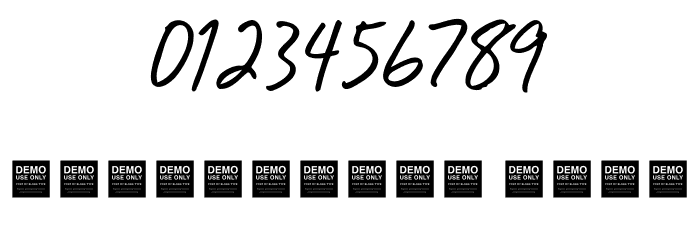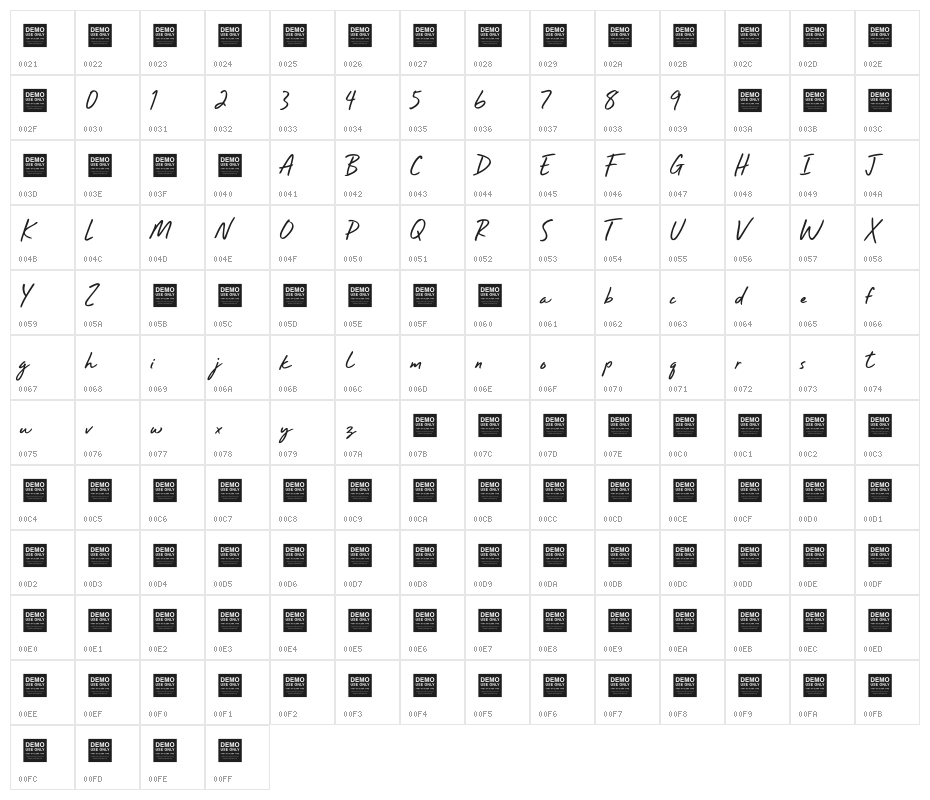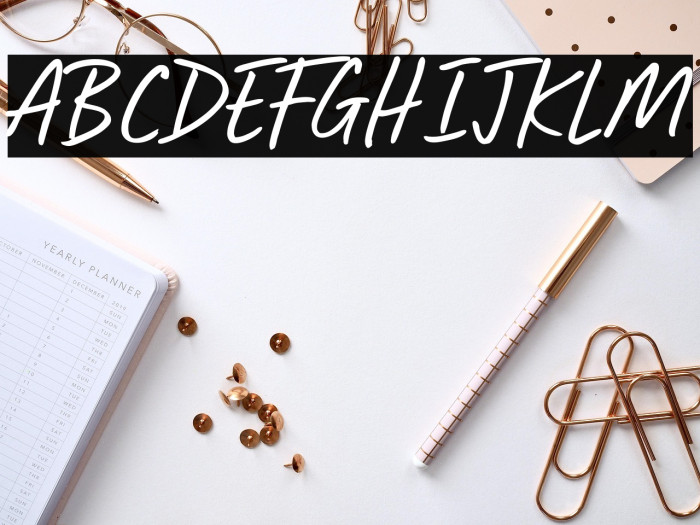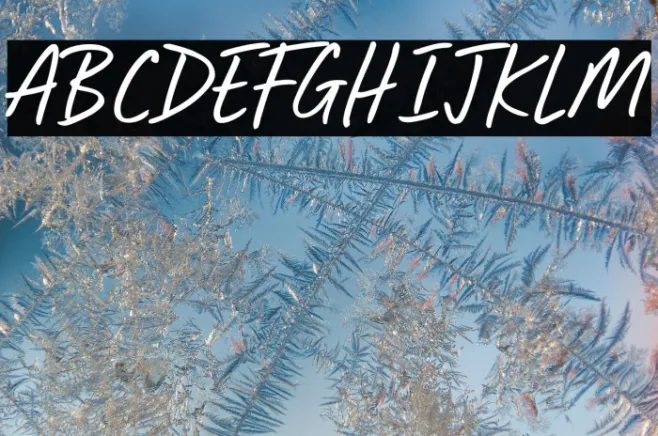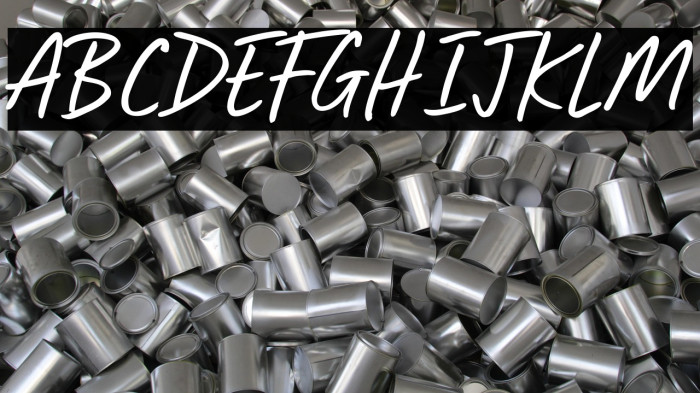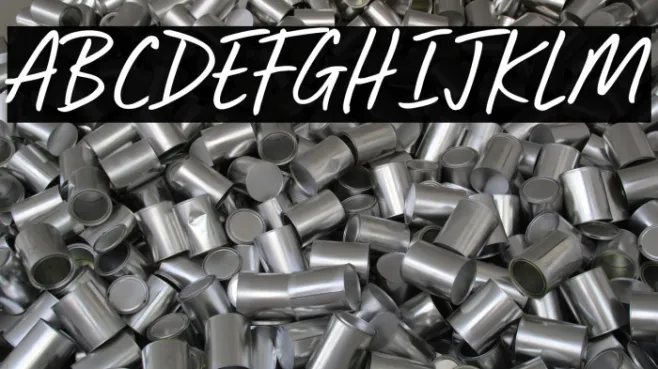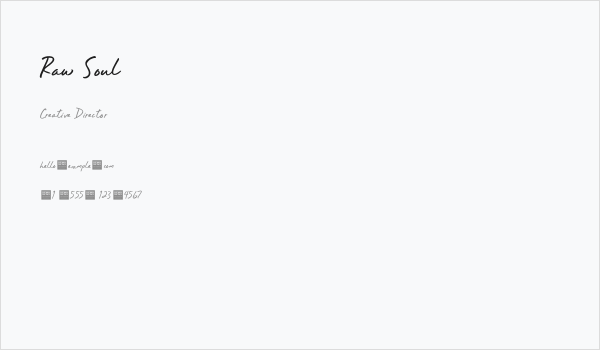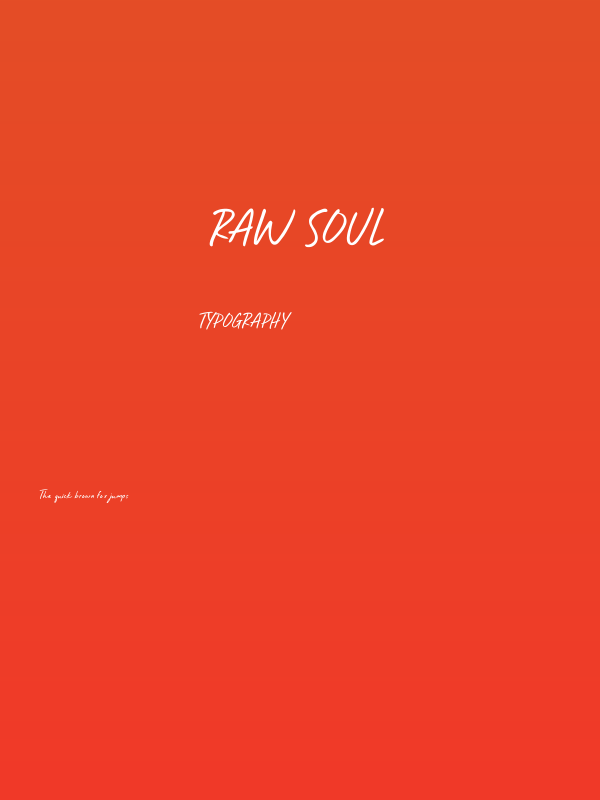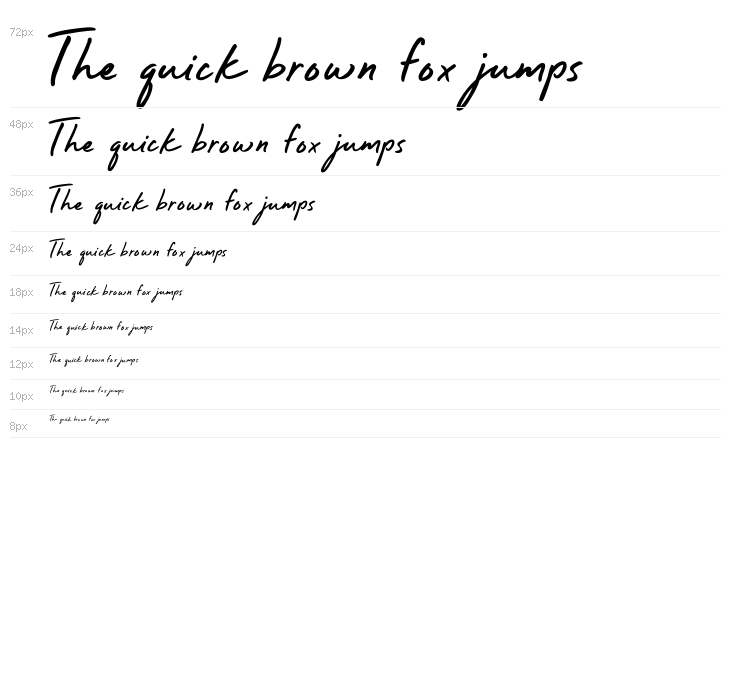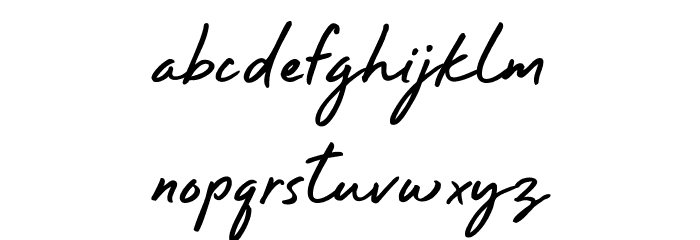
Raw Soul Font
Raw Soul Description
This font exudes a casual and handwritten style, characterized by its fluid and natural strokes. The letters are slightly slanted, giving it a dynamic and lively appearance. The uppercase and lowercase letters maintain a consistent flow, with rounded edges and smooth curves that mimic the look of authentic handwriting. The numerals follow the same style, ensuring a cohesive look across all characters. This font is versatile, offering a personal touch to any design project. Its informal yet elegant style makes it suitable for a variety of creative applications.
Overall StyleCasual, Elegant
Use CaseLogos, Invitations, Greeting Cards
Proposed ProjectsIdeal for personal branding, invitations, greeting cards, and creative projects that require a personal touch.